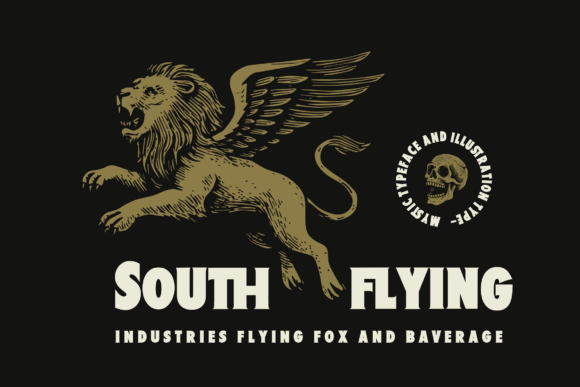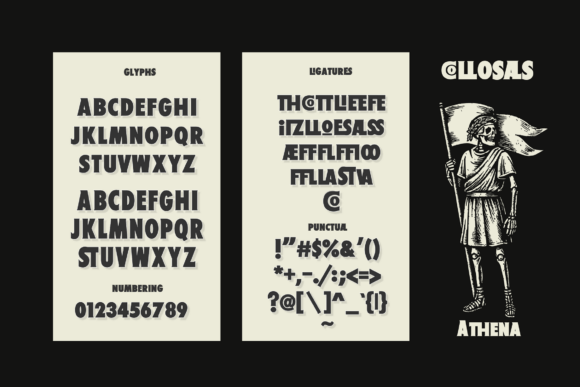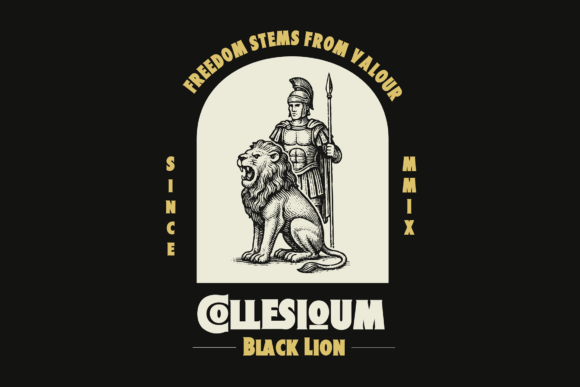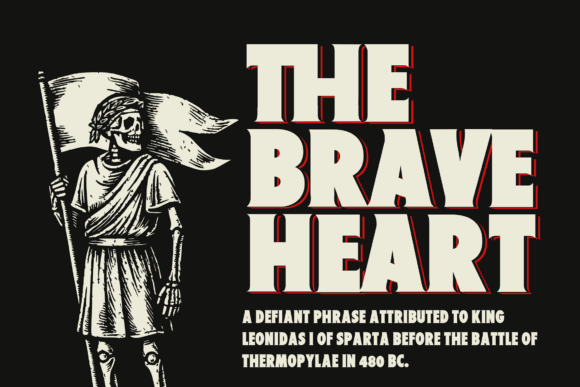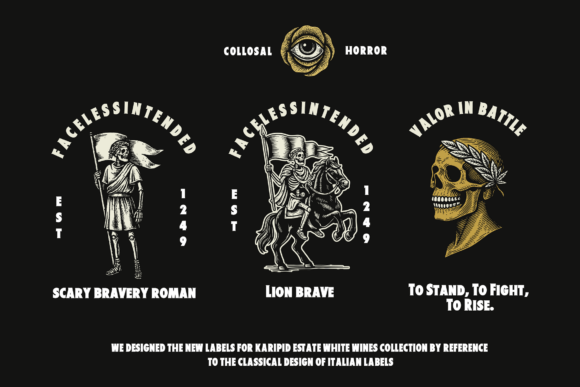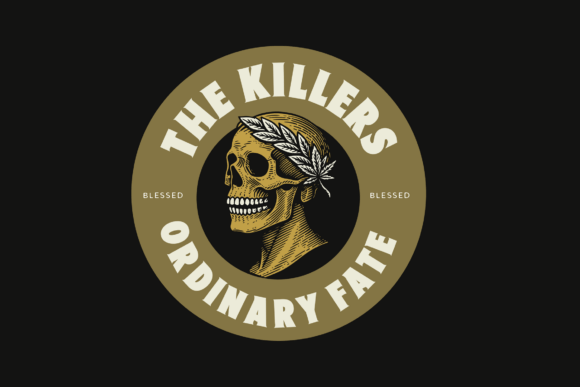
Introduction to Liondales Font
Have you ever stumbled upon a design element that immediately elevates your creative project? For designers, that moment is priceless. It’s the spark that ignites a new idea, the missing piece that brings a concept to life. For us, that moment came with the discovery of the Liondales Font – a colossal retro serif typeface that screams grandeur and authority.
With its monumental letterforms and dramatic curves, the Liondales Font is more than just a design resource – it’s a key to unlocking timeless and majestic visual storytelling. Whether you’re working on a film title, historical branding, or bold editorial layouts, this high-quality font is sure to bring a regal and theatrical feel to your project. And the best part? You can download it for free, allowing you to unleash your creativity without any limitations.
As a valuable addition to your design arsenal, the Liondales Font offers a transparent background, perfect for layered designs, and a range of features that make it a standout choice for any creative project.
Key Features of Liondales Font
- High-quality design resource for creative projects, ideal for logos, branding, and typography
- Perfect for designers and artists working on creative projects, including graphic design, digital art, and UI/UX design
- High-quality font with unique characteristics, suitable for use in various design contexts, from modern to vintage aesthetics
Honest Review: Liondales Font
As a designer, I’m always on the lookout for high-quality fonts that can elevate my creative projects. Recently, I came across the Liondales Font, and I’m excited to share my honest review with you.
- High-quality design: The Liondales Font boasts a sleek and modern design that’s perfect for contemporary projects.
- Transparent background: The font’s transparent background makes it easy to work with, allowing for seamless layering and design flexibility.
- Limited character set: The font only includes a limited character set, which may not be suitable for complex design projects.
- No variations: Unlike some other fonts, Liondales Font doesn’t offer any variations or styles, which can limit its versatility.
Overall, I’m impressed with the Liondales Font’s high-quality design and free download option. While it may have some limitations, it’s an excellent resource for designers working on simple to medium-complexity projects.
Tips for Getting the Most Out of Liondales Font
To get the most out of Liondales Font, use it on a transparent background to give your design a clean and modern look. Experiment with different font sizes and styles to add depth and visual interest to your creative project.
Common Use Cases for Liondales Font
Liondales Font is ideal for use in branding, logos, and typography-based designs. Its high-quality design makes it perfect for use in creative projects where a clean and modern look is desired.
Does the Liondales Font have a transparent background?
No, the Liondales Font does not have a transparent background. However, its high-quality design and clear typography make it an excellent choice for any creative project, from print materials to digital designs. If you need a font with a transparent background, you may want to consider a different design resource.